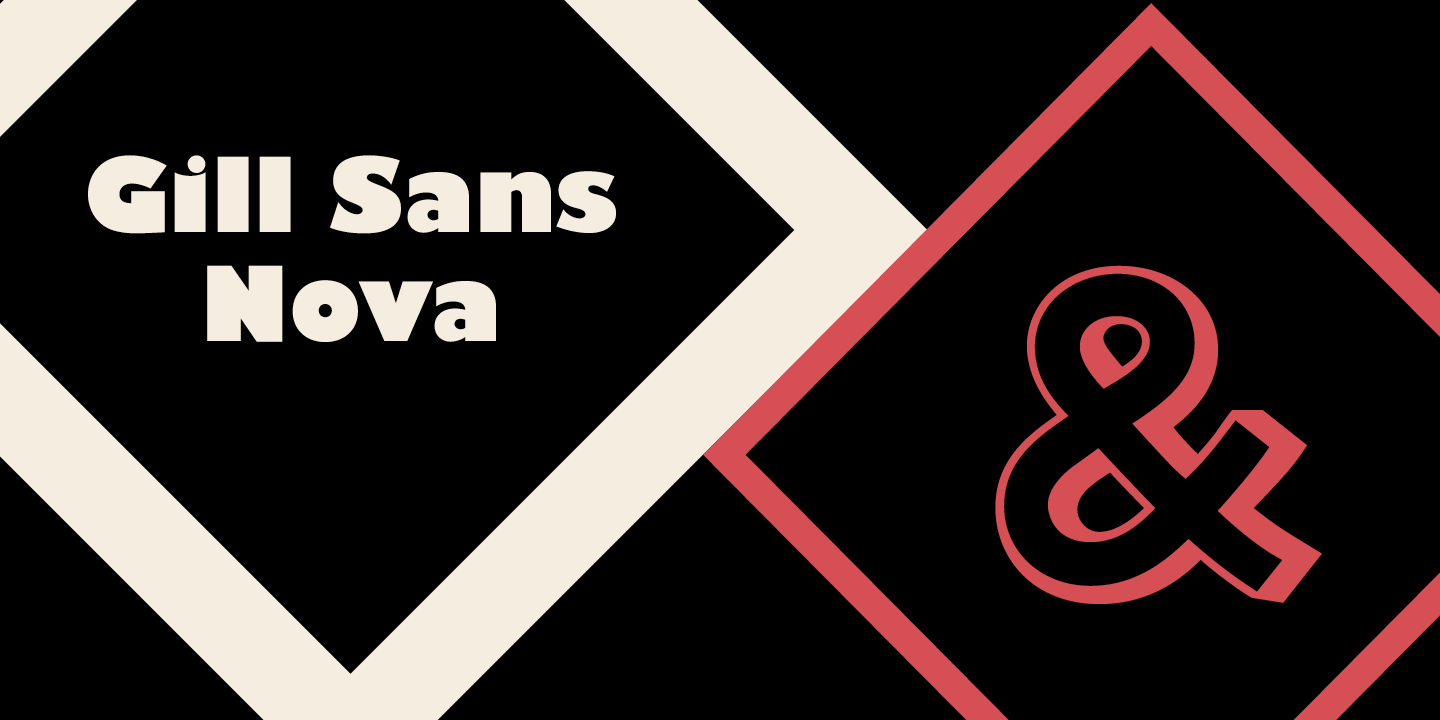
Rediscover the British typographic masterpiece with Gill Sans Nova Font Free Download, the definitive 21st century evolution of Eric Gill's iconic humanist sans-serif. This comprehensive update preserves the font's classic charm while enhancing its technical performance for modern design needs.
Why Gill Sans Nova Excels
1. Timeless Humanist Design
Preserves Eric Gill's original letterform proportions
Subtly refined curves and stroke endings
Enhanced digital rendering
2. Versatile British Character
Perfect for:
Classic British branding
Editorial and publishing
Transportation wayfinding
Academic communications
Institutional identity
3. Modern Technical Features
40 styles (8 weights with matching italics)
Extended Latin and Cyrillic support
Small caps and old-style figures
Optimized for web and print
Professional Implementation
Gill Sans Nova Font Free Download elevates:
University branding systems
Heritage organization identities
Book typography
Government communications
Luxury packaging
Use Light for elegant display, Regular for text
Designer Tip: Pair italic small caps with roman for subtle emphasis.
Gill Sans Nova Font Free Download – The quintessential British sans-serif, perfected for today!
Key Advantages:
Maintains warmth at small sizes
Perfect for long-form reading
Official font of many UK institutions
Why It's Special:
This Monotype update carefully preserves Gill's humanist vision while addressing digital-era requirements.
Perfect Pairing:
Combine with Joanna Nova for authentic British typographic harmony.
Pro Insight:
The Book weight works exceptionally well for museum signage, offering authority with approachability.
Includes rare Gill alternates
Historical ligatures
Optimized for laser engraving
Design Heritage:
Staying true to Gill's 1928 original while meeting 21st century technical standards.
Expert Recommendation:
Use in British Rail colors (Pantone 548 + 109) for authentic transport design nostalgia.
Technical Note:
The Nova version includes expanded kerning pairs and improved hinting for screens.